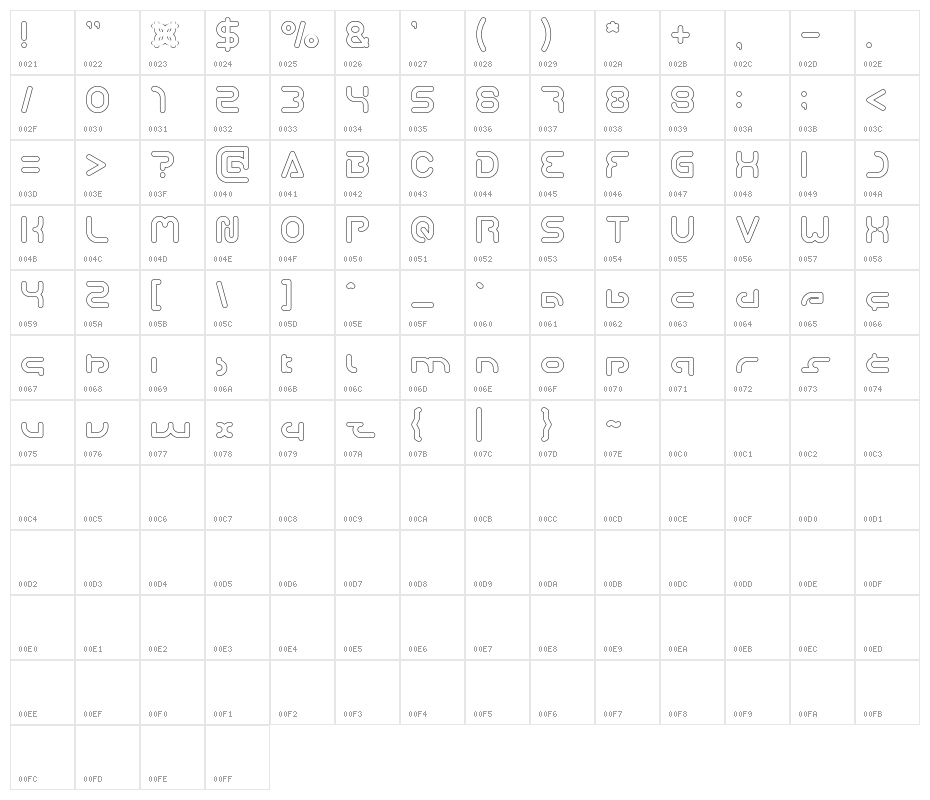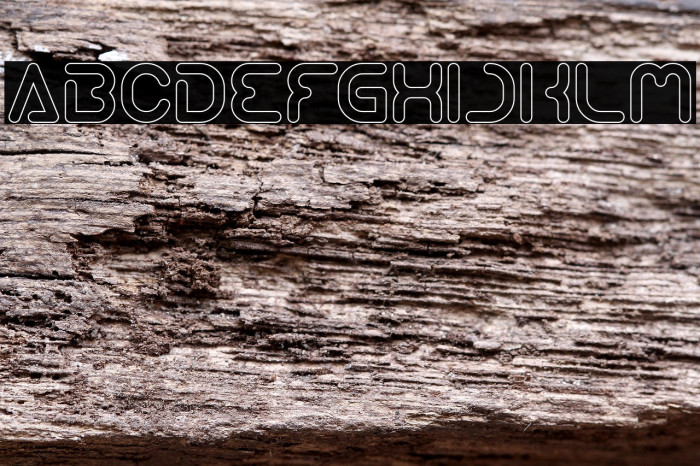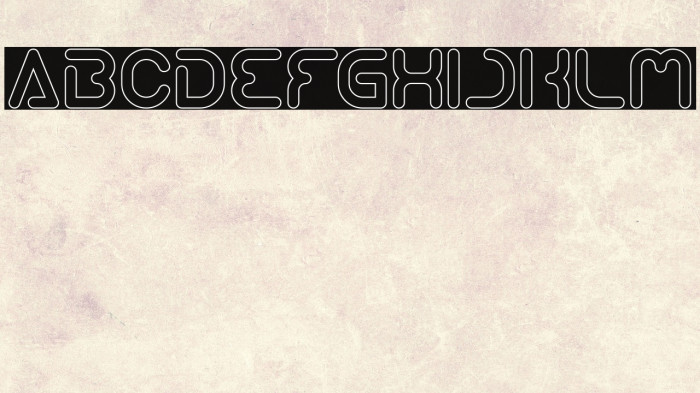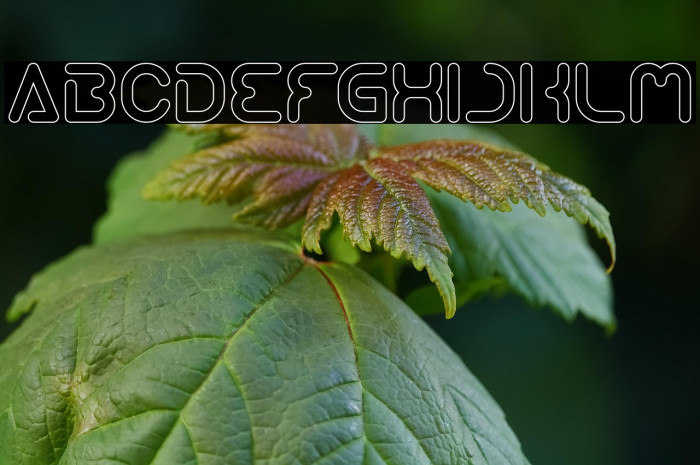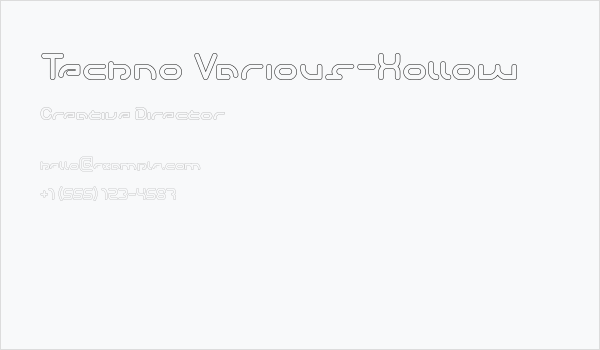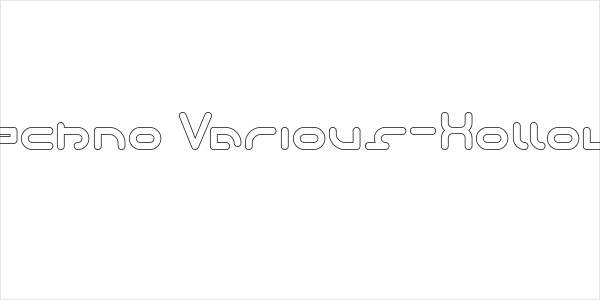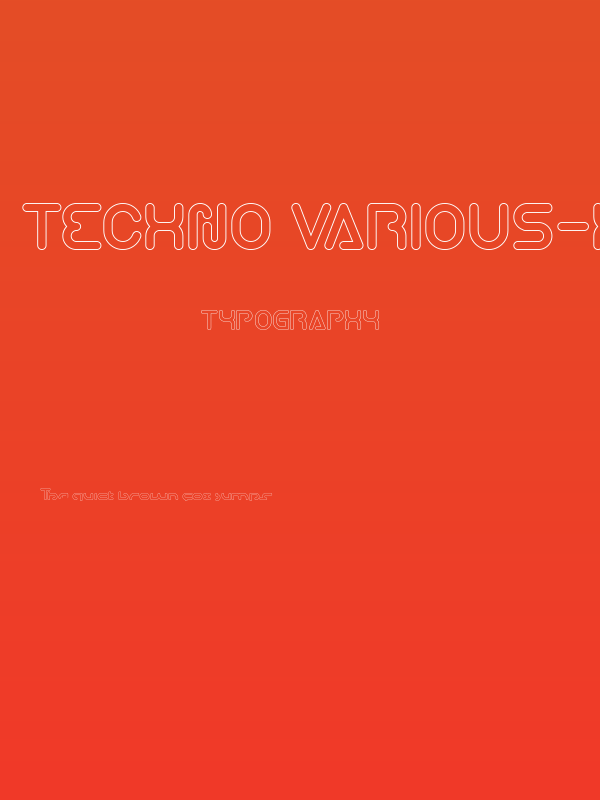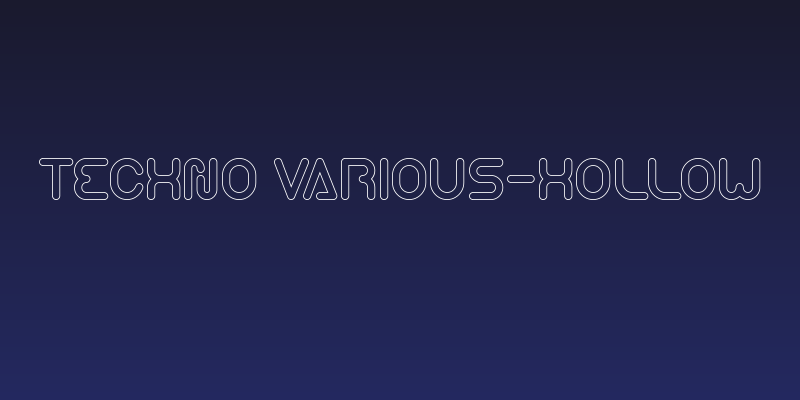
Techno Various-Hollow Font
Techno Various-Hollow Description
This font features a futuristic and hollow design, characterized by its geometric and streamlined letterforms. Each character is outlined with a consistent stroke width, creating a hollow effect that gives it a modern and technological appearance. The uppercase and lowercase letters maintain a uniform style, with rounded edges and a sleek, minimalistic look. The numbers and special characters follow the same design principles, ensuring a cohesive visual identity across all elements. This font's unique style makes it ideal for projects that require a contemporary and cutting-edge aesthetic.
| Proposed Projects | Ideal for tech-related branding, digital interfaces, sci-fi themed designs, and modern advertising. |